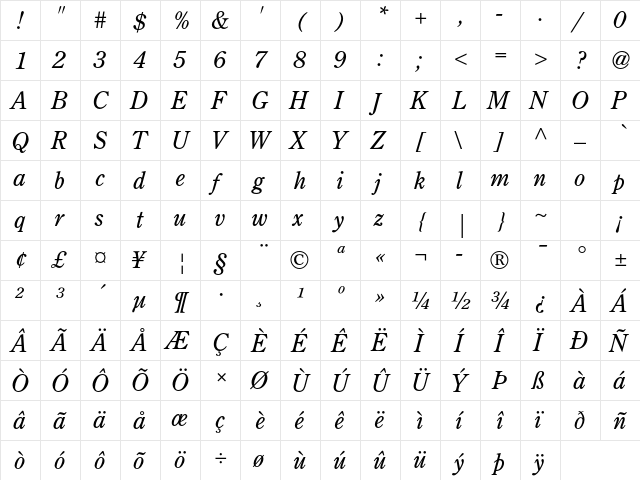
Century Old Style Std Italic Font Preview
Century Old Style Std Italic
Century Old Style Std Italic Font Details
| Designer | Morris Fuller Benton |
Design Context for Century Old Style Std Typeface
Century Old Style Std is a composed and adaptable typeface that performs quietly and consistently across a wide range of design contexts. The dynamic lean of this cut emphasises speed and emphasis in any layout.
Pro Tip: Try Century Old Style Std for annotation and caption copy alongside an upright companion — the contrast in angle creates a dynamic but ordered typographic system.